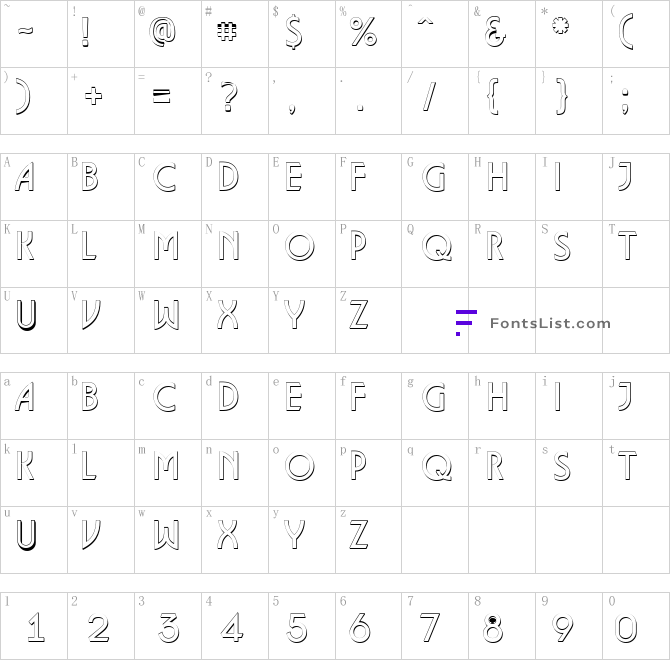
- Font Name:a_Lancet3D
a_Lancet3D.ttf is a very beautiful artistic font, a_Lancet3D.ttf is widely used in the design and printing of various books and pictures,a_Lancet3D.ttf has a strong visual impact,a_Lancet3D.ttf is a commonly used font in newspapers, magazines and books, and is used in posters, e-commerce Poster design, store design, logo design, font design and other fields.a_Lancet3D.